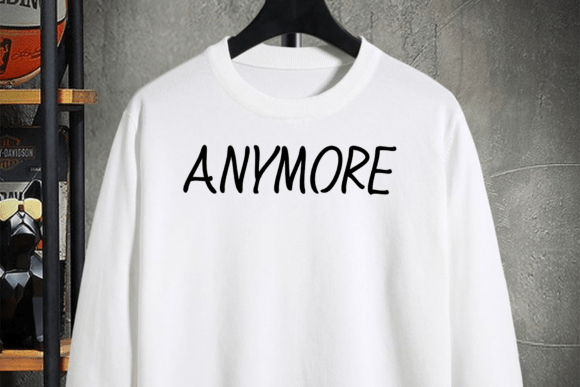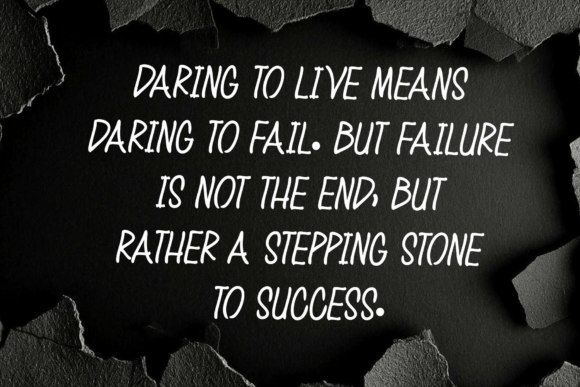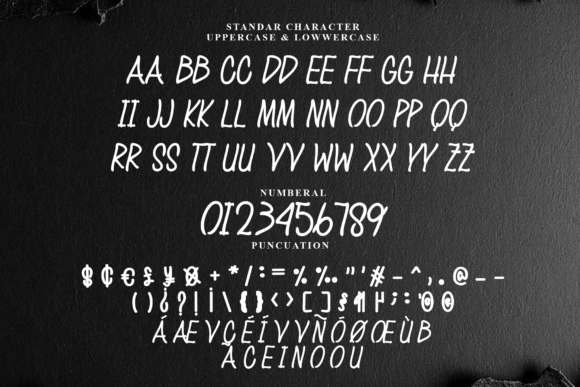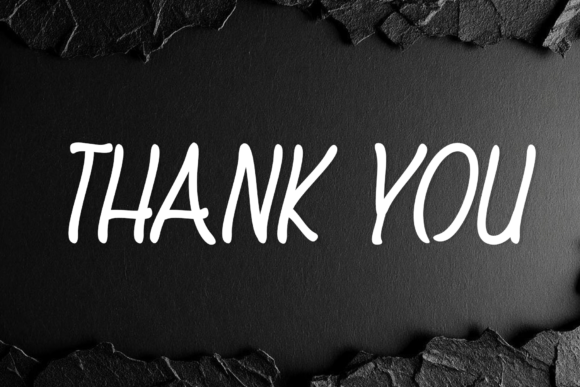
Discover the Elegance of Blackpaper Font: A Unique Addition to Your Typography Arsenal
In the realm of typography, the right font can elevate your design from ordinary to extraordinary. For designers and crafters seeking a typeface that embodies clarity, elegance, and a touch of sophistication, the Blackpaper Font stands out as a remarkable choice. This modern handwritten font is not just a stylistic element; it’s an experience that brings a fresh, airy feel to any project it’s part of.
The Distinctive Features of Blackpaper Font
Blackpaper Font is described as a “unique and professional” entry into the modern handwritten collection. Its design is centered around tall, thin strokes that give it a distinctive appearance. These strokes are not merely vertical; they carry a subtle, airy slant that adds to the font’s elegance and dynamism. This characteristic slant does not compromise readability; instead, it enhances the font’s aesthetic appeal, making it perfect for designs that require a touch of sophistication.
Aesthetic Appeal and Versatility
The aesthetic of Blackpaper Font can be likened to a mountain breeze – fresh, invigorating, and clear. Its clean and approachable style makes it incredibly versatile, suitable for a wide range of applications. Whether you’re working on travel photography projects, crafting branding for outdoor gear, or designing sophisticated web interfaces, Blackpaper Font can add a level of refinement and elegance that’s hard to achieve with more conventional typefaces.
Ideal Applications for Blackpaper Font
Given its characteristics, Blackpaper Font finds its ideal applications in:
- Travel Photography: For travel photographers and bloggers, the font’s fresh and airy feel perfectly complements images of landscapes, adventures, and cultural explorations.
- Outdoor Gear Branding: Brands that focus on outdoor gear and apparel can leverage the font’s rugged yet elegant feel to communicate their values and aesthetic.
- Sophisticated Web Design: For web designers looking to create a site that feels premium and refined, Blackpaper Font can be a valuable asset, especially for headings, titles, and key messaging.
Why Choose Blackpaper Font?
Choosing Blackpaper Font for your design project comes with several benefits:
- Unique Style: It offers a unique style that can differentiate your project from others.
- Readability: Despite its elegance, the font maintains a high level of readability, making it practical for use in various contexts.
- Versatility: Its adaptability across different mediums and applications makes it a valuable addition to any designer’s toolkit.
Blackpaper Font is more than just a typeface; it’s a design statement. With its unique blend of elegance, clarity, and freshness, it offers designers and crafters a powerful tool to convey sophistication and refinement. Whether you’re aiming to create visually stunning travel photography presentations, compelling outdoor gear branding, or sophisticated web designs, Blackpaper Font can help you achieve your aesthetic goals. Embrace the elegance and versatility of Blackpaper Font in your next project and experience the difference it can make.
As the design world continues to evolve, having a font like Blackpaper at your disposal can be a game-changer. It’s an invitation to push the boundaries of creativity and to explore new possibilities in typography and design. So, take the leap and discover how Blackpaper Font can elevate your designs to new heights of elegance and sophistication.